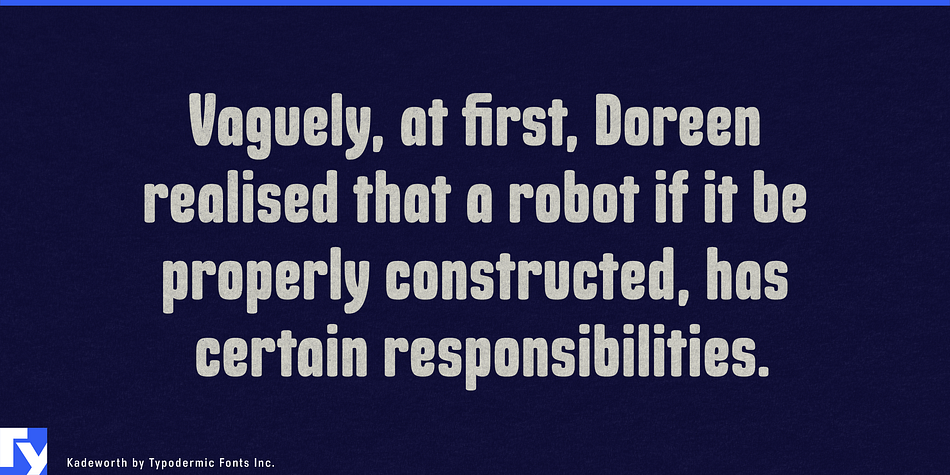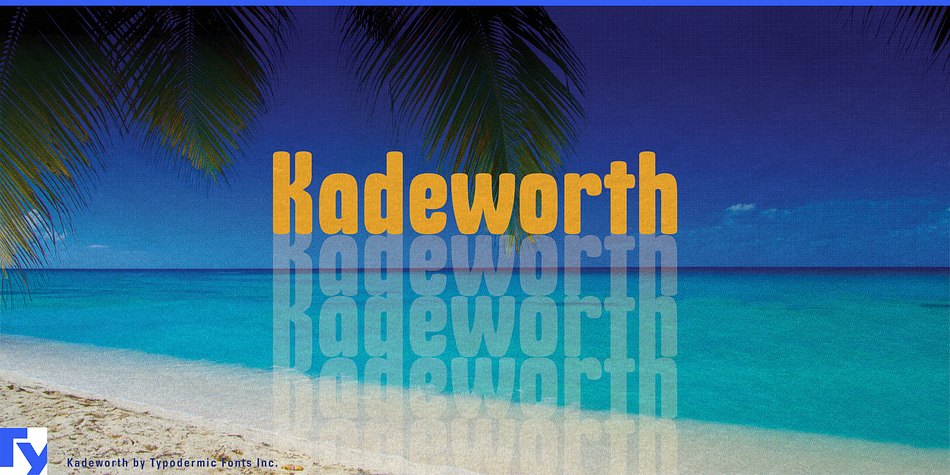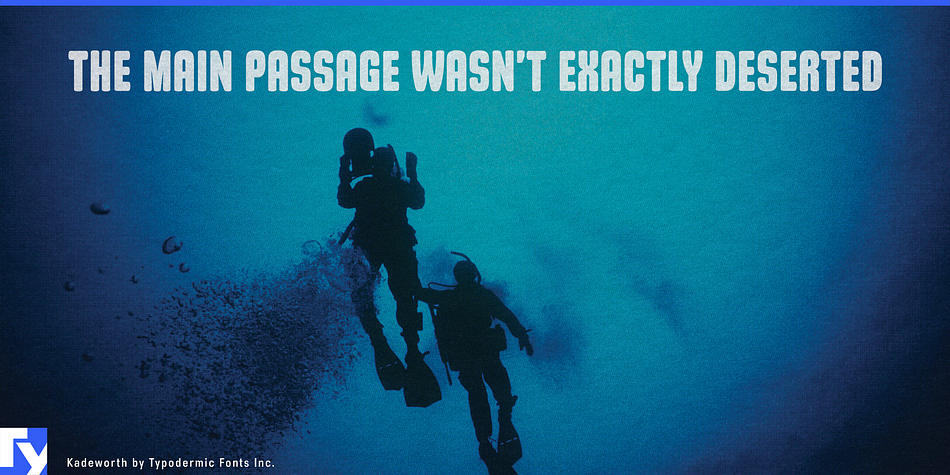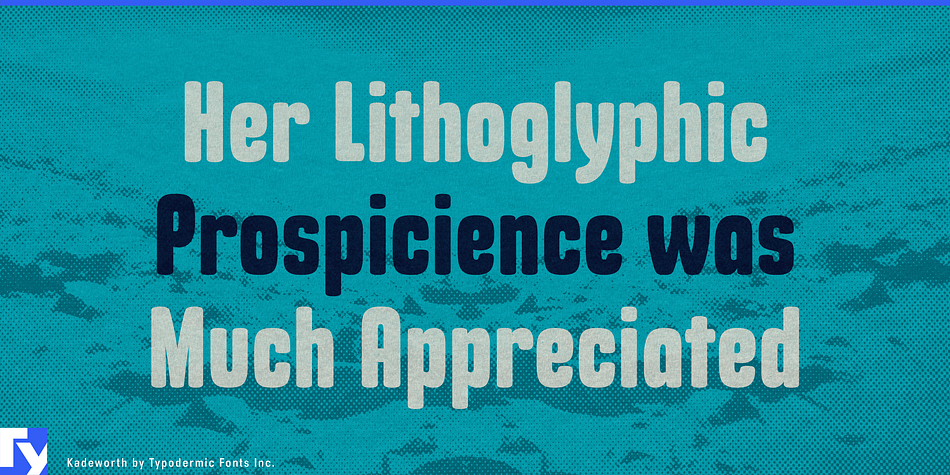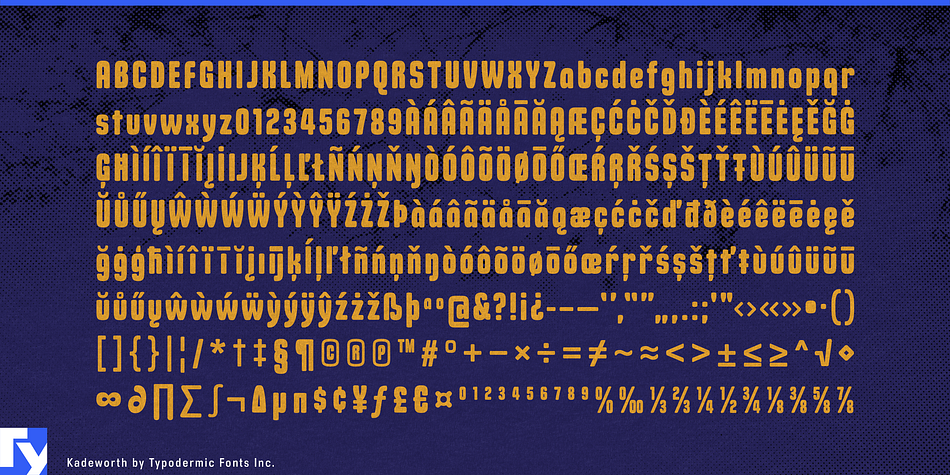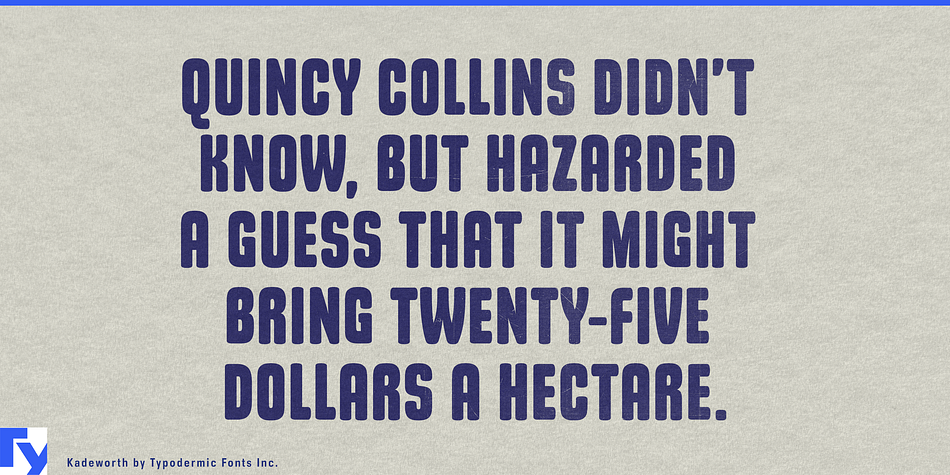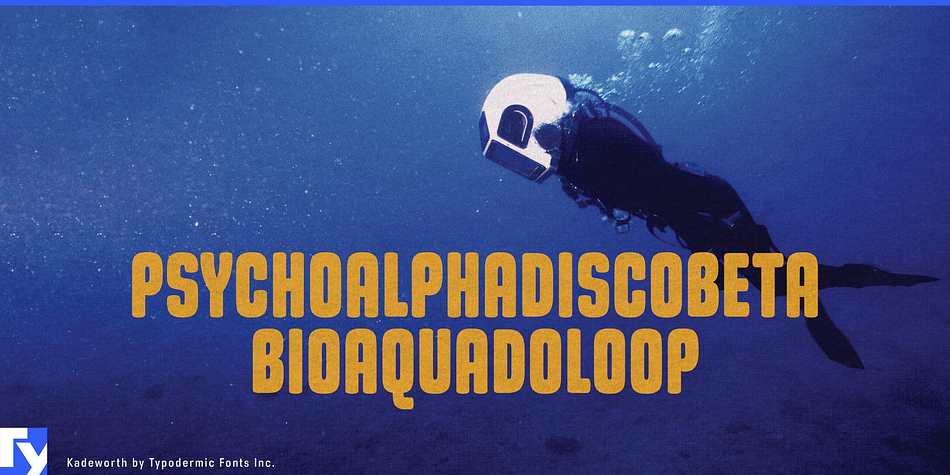
Kadeworth is a comic font published by Typodermic Fonts Inc.
Kadeworth is a round, authoritative headliner which has been specifically designed for use on the web.